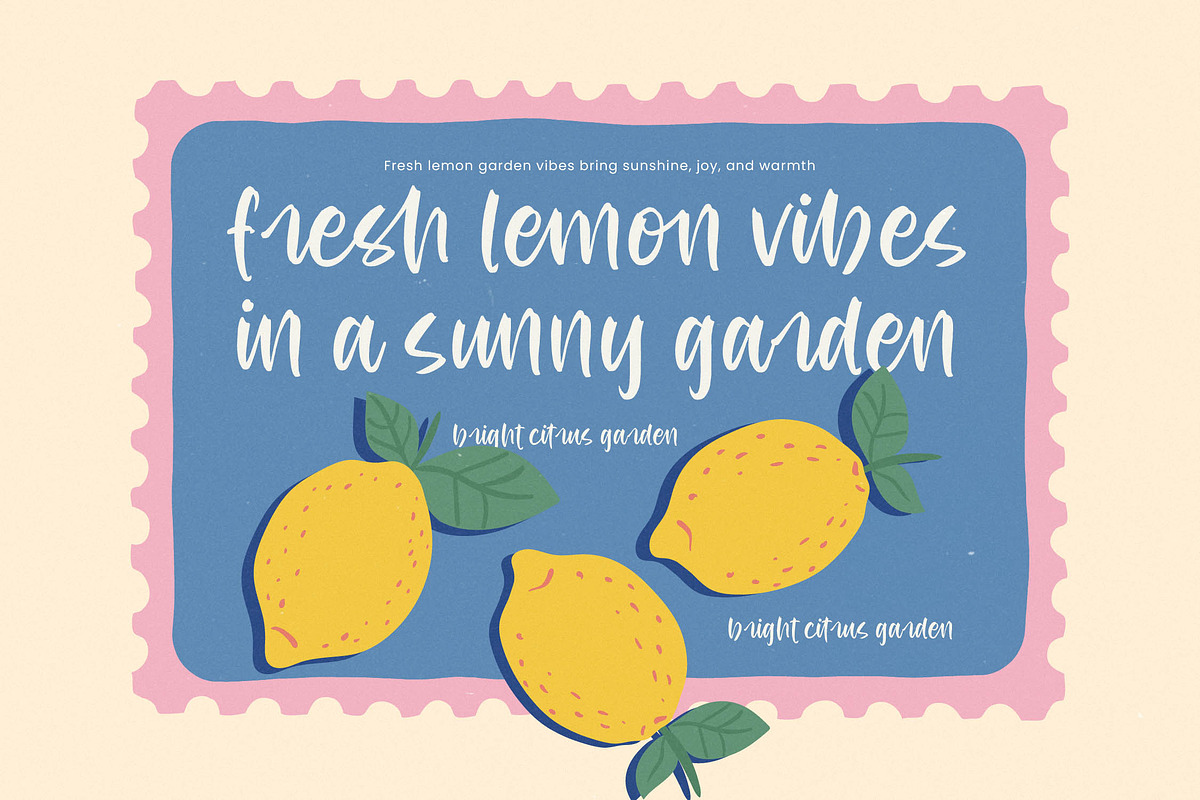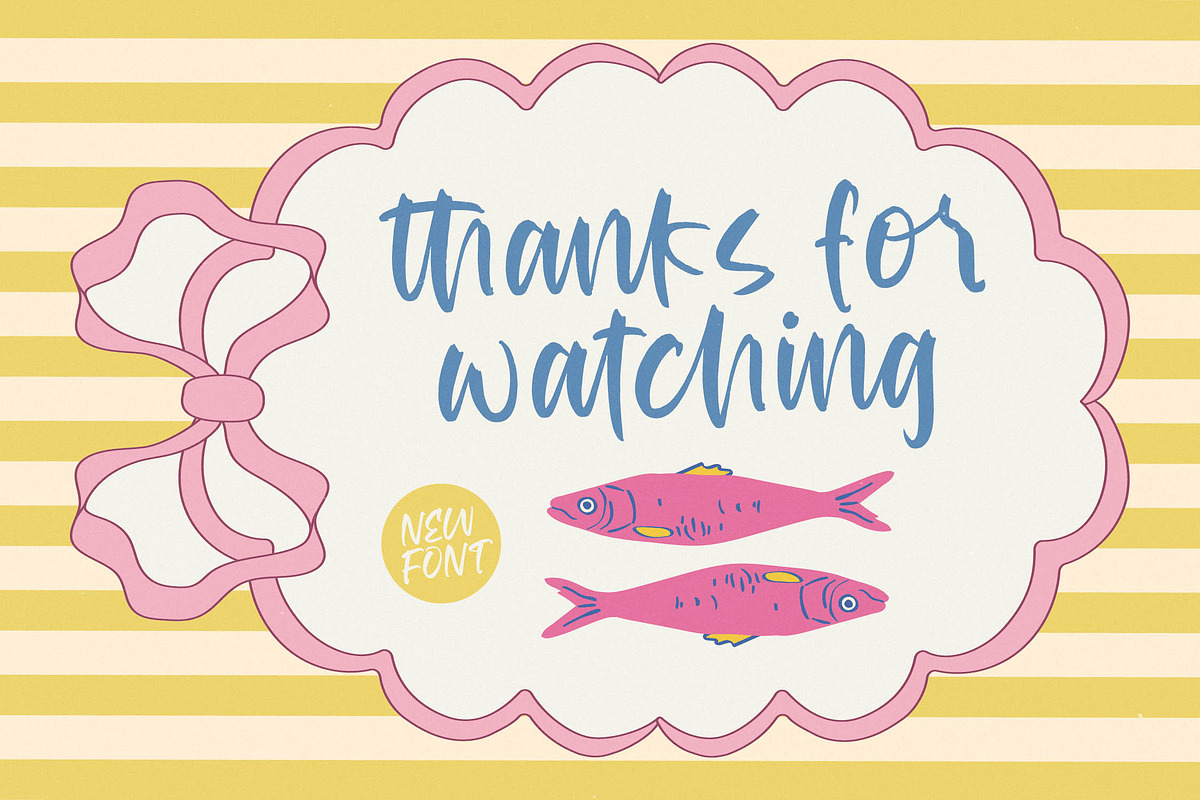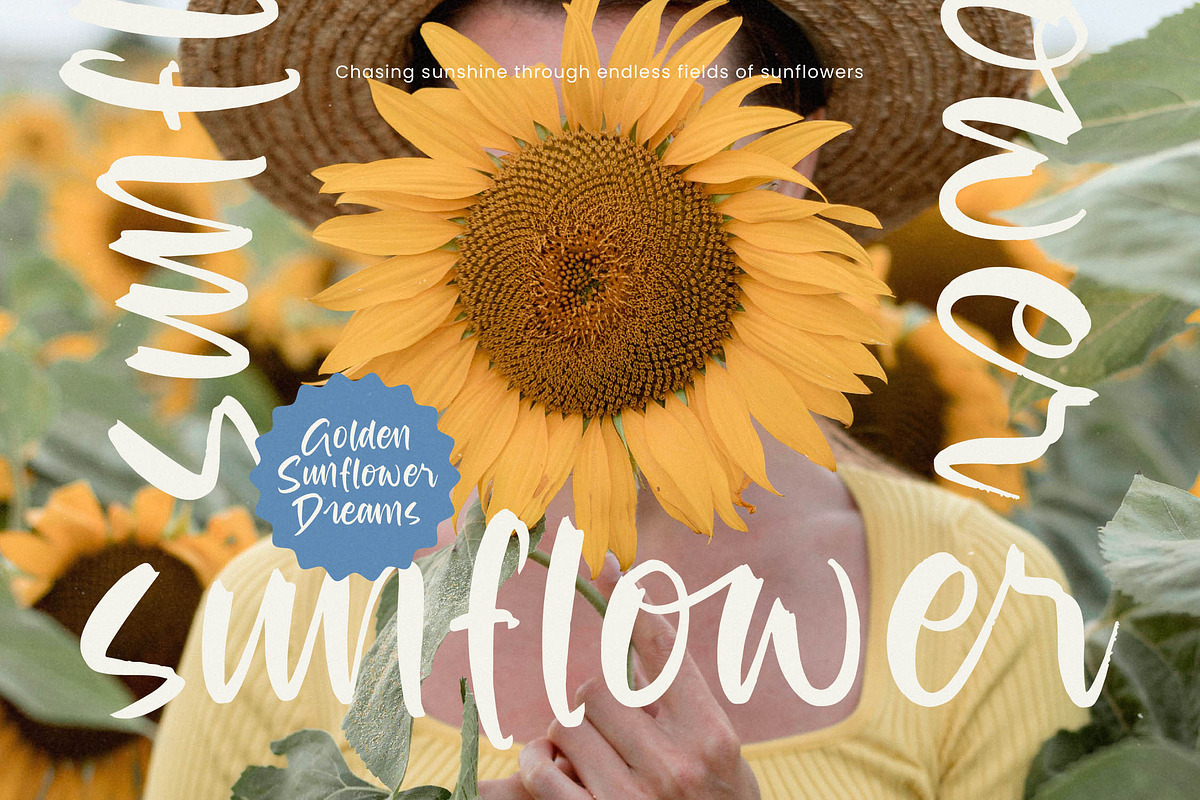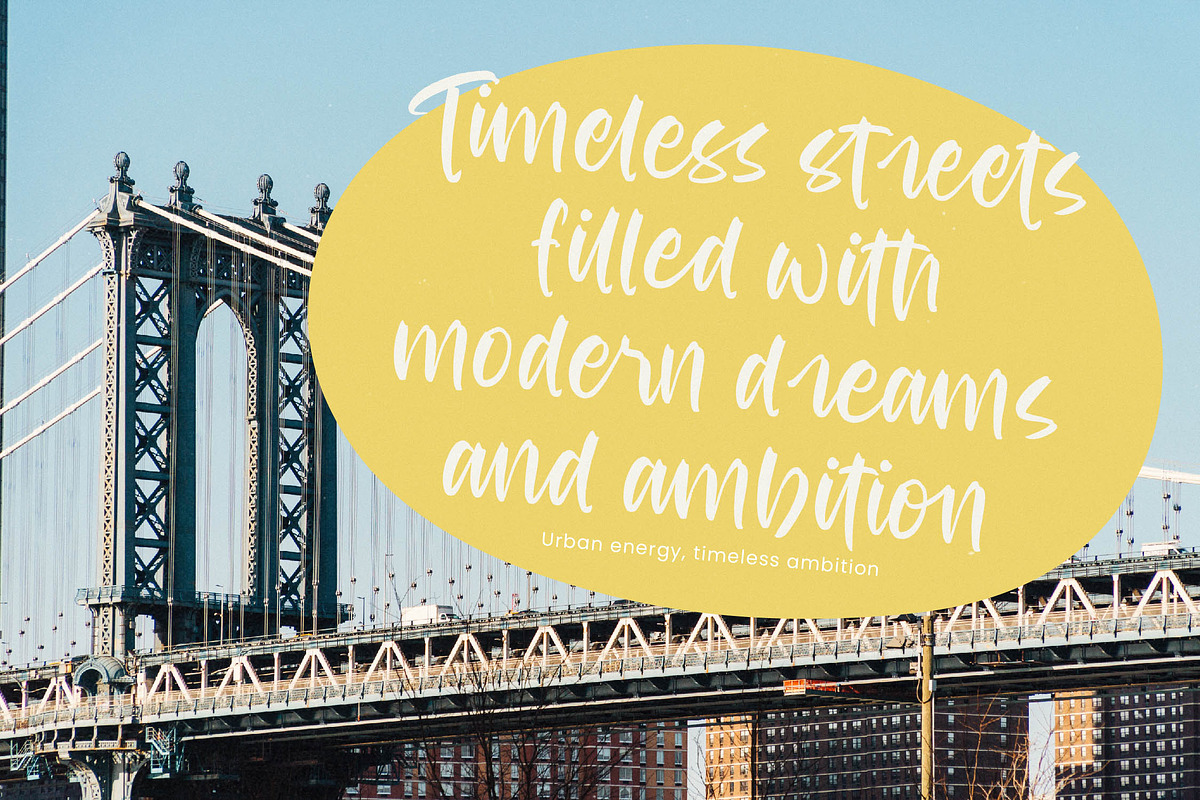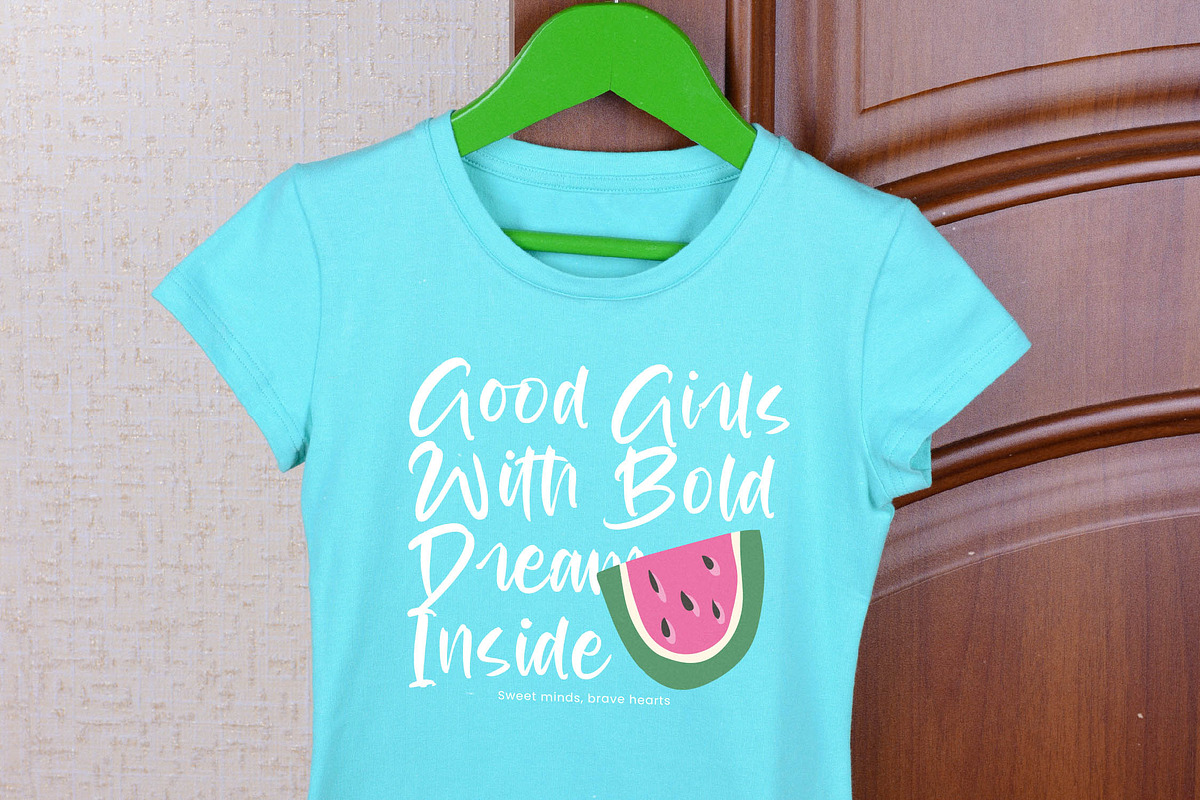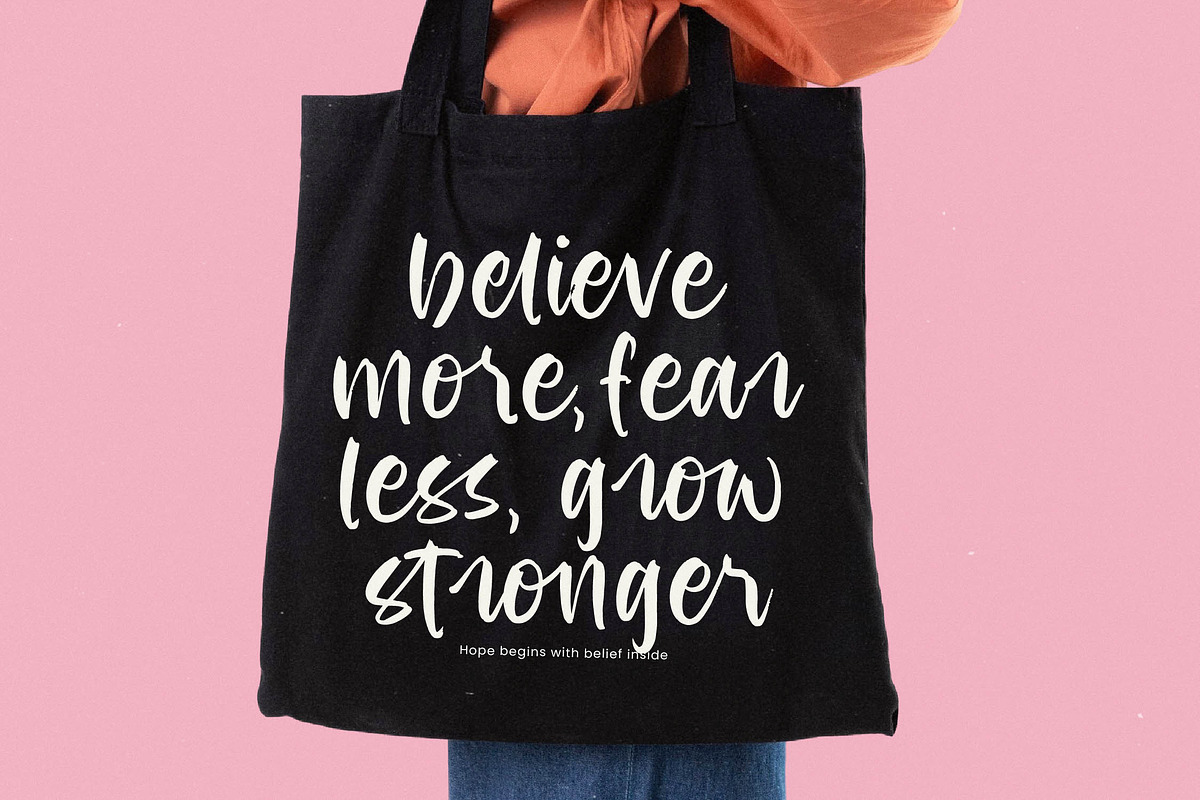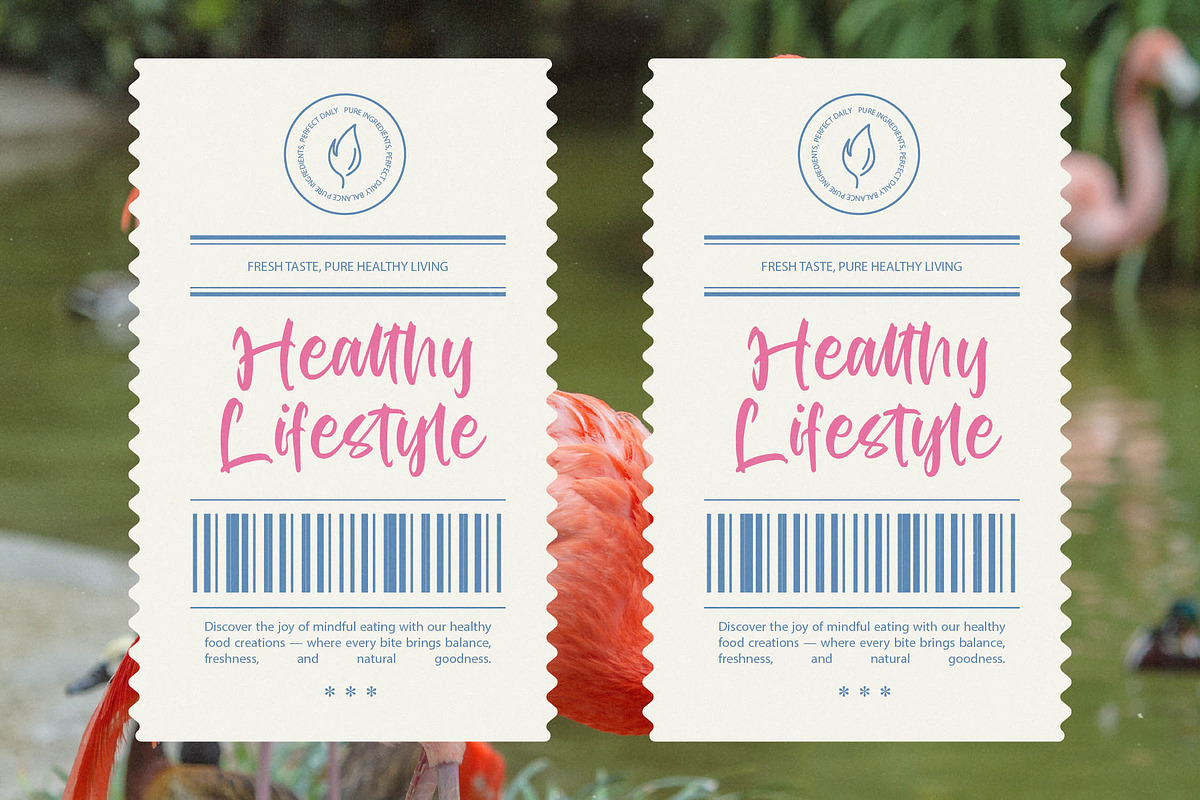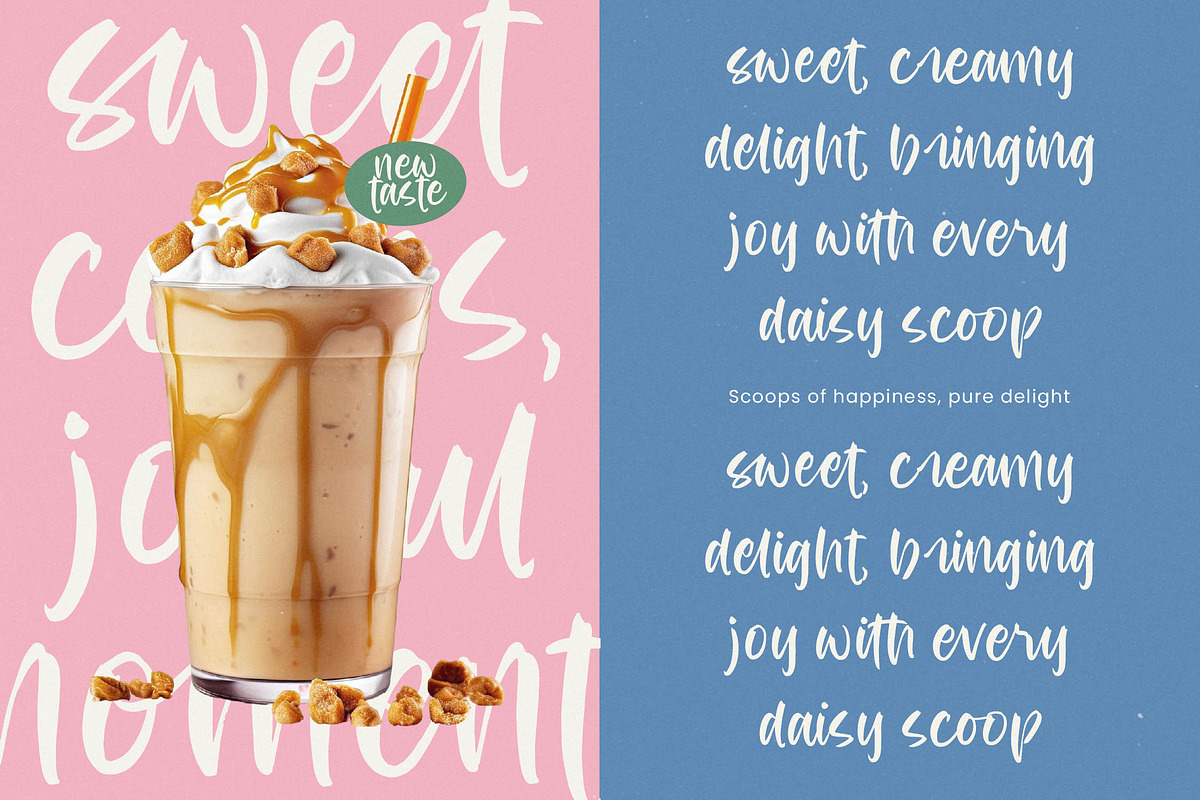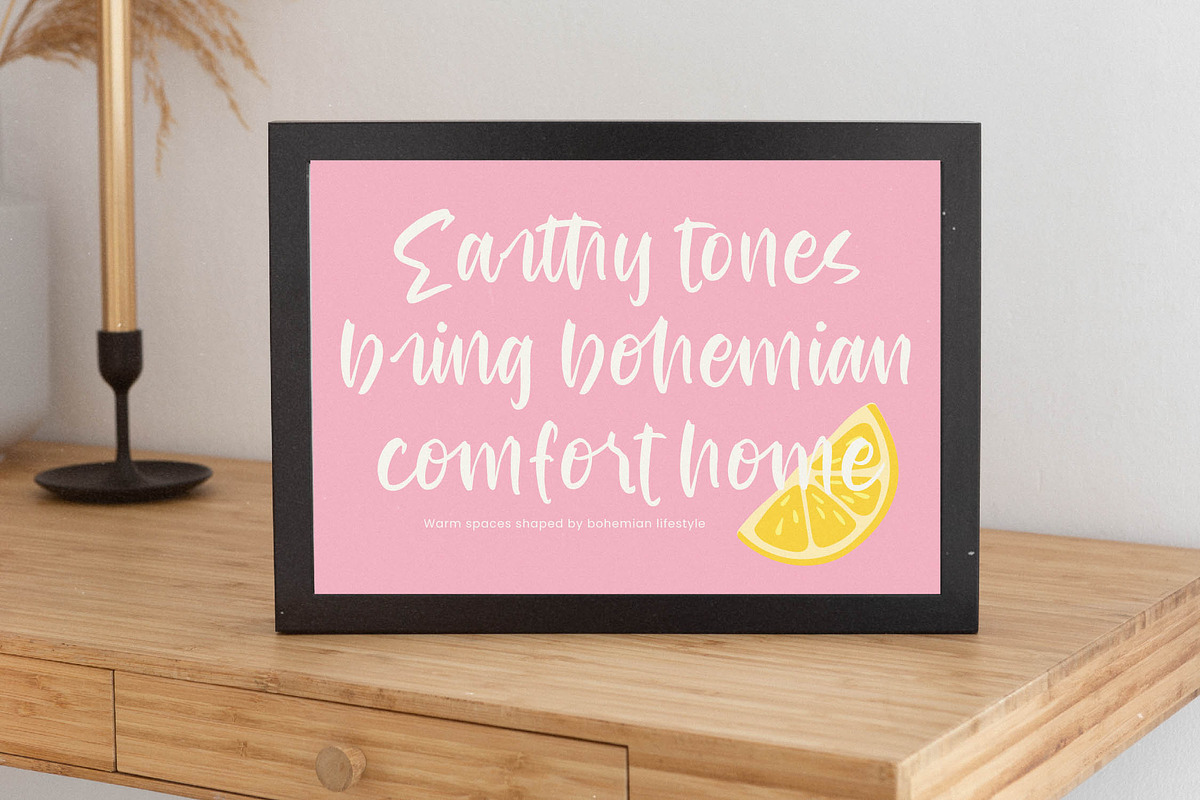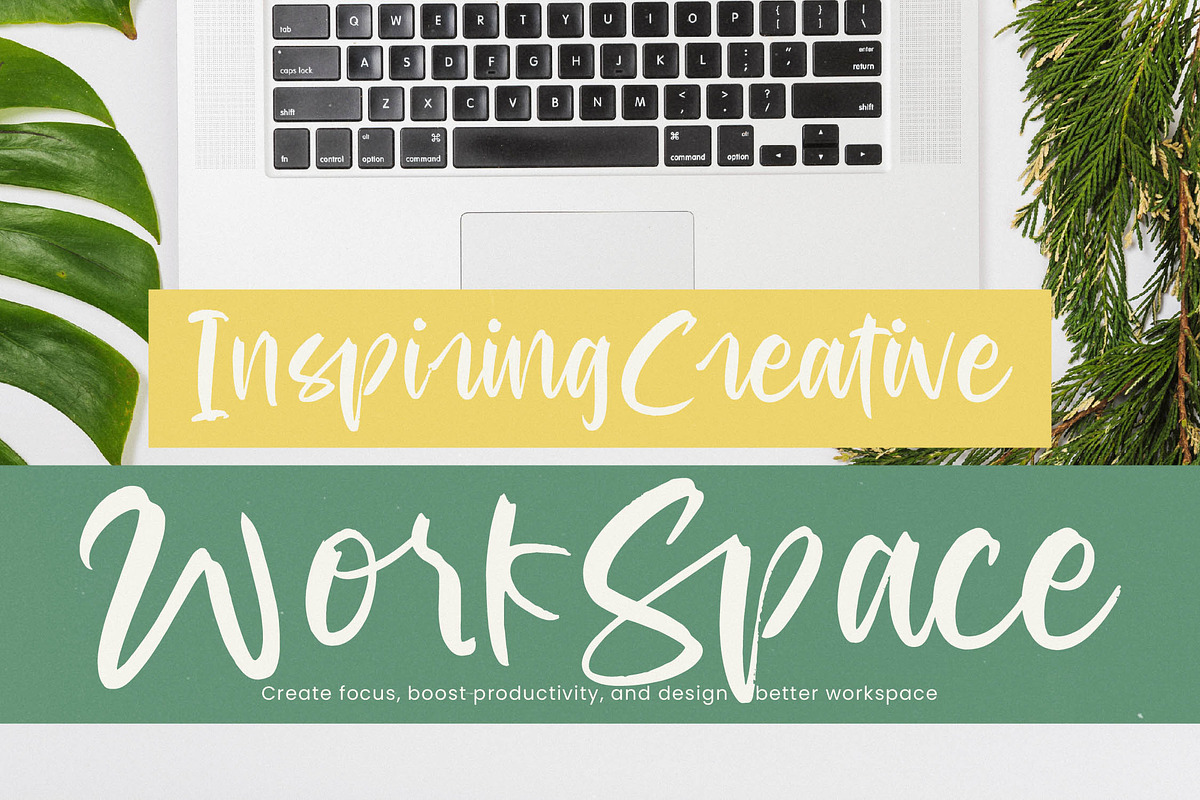
Redfish Grouper Bold Modern Handwr
Redfish Grouper - Bold Modern Handwritten , Redfish Grouper is a bold modern handwritten font designed with playful strokes and a lively handmade character. Its expressive lines and organic movement make it perfect for designs that need a fun, youthful, and eye-catching personality. Ideal for children’s products, food packaging, creative branding, craft visuals, posters, and social media graphics. With 159 ligatures, 29 alternates, and 2 style variations, this font gives you full flexibility to create unique lettering compositions with charm and originality.